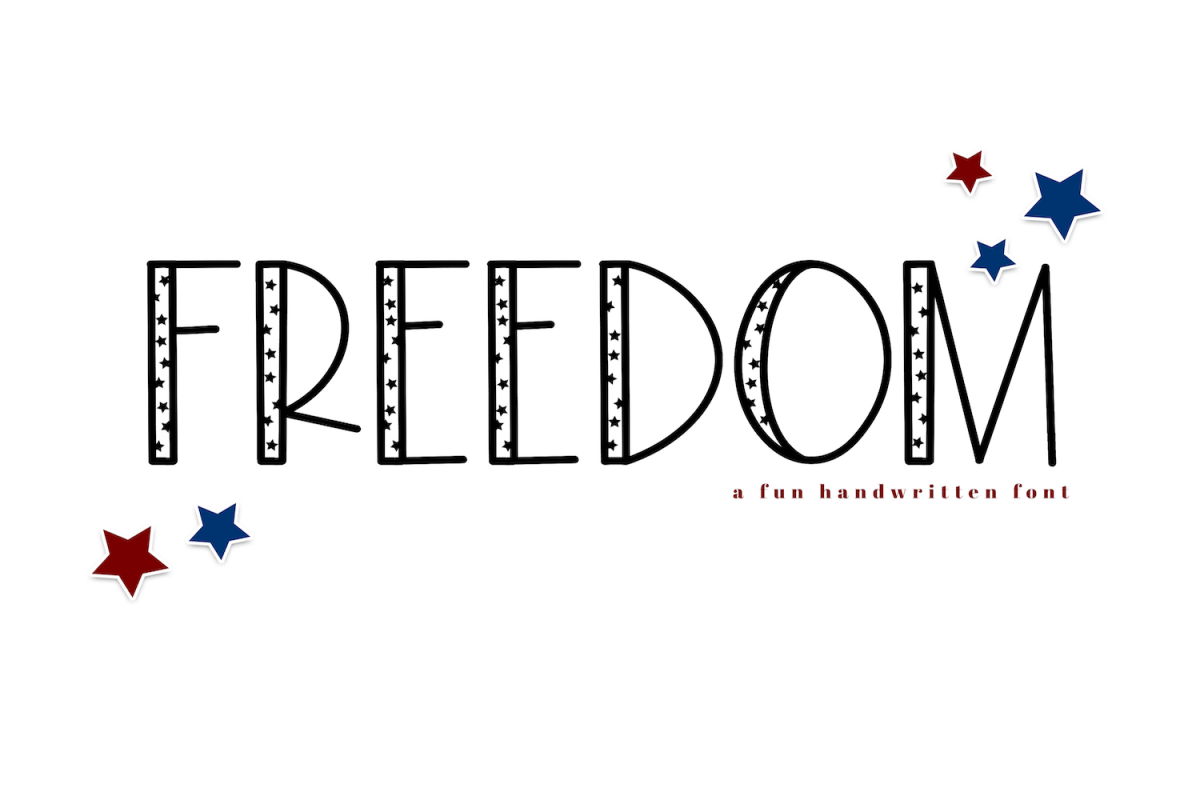
Star is a fun font that is perfect for your simple and cute July fourth creations!
This font is perfect for stickers, shirts, craft projects, signs, social media, monograms and more!